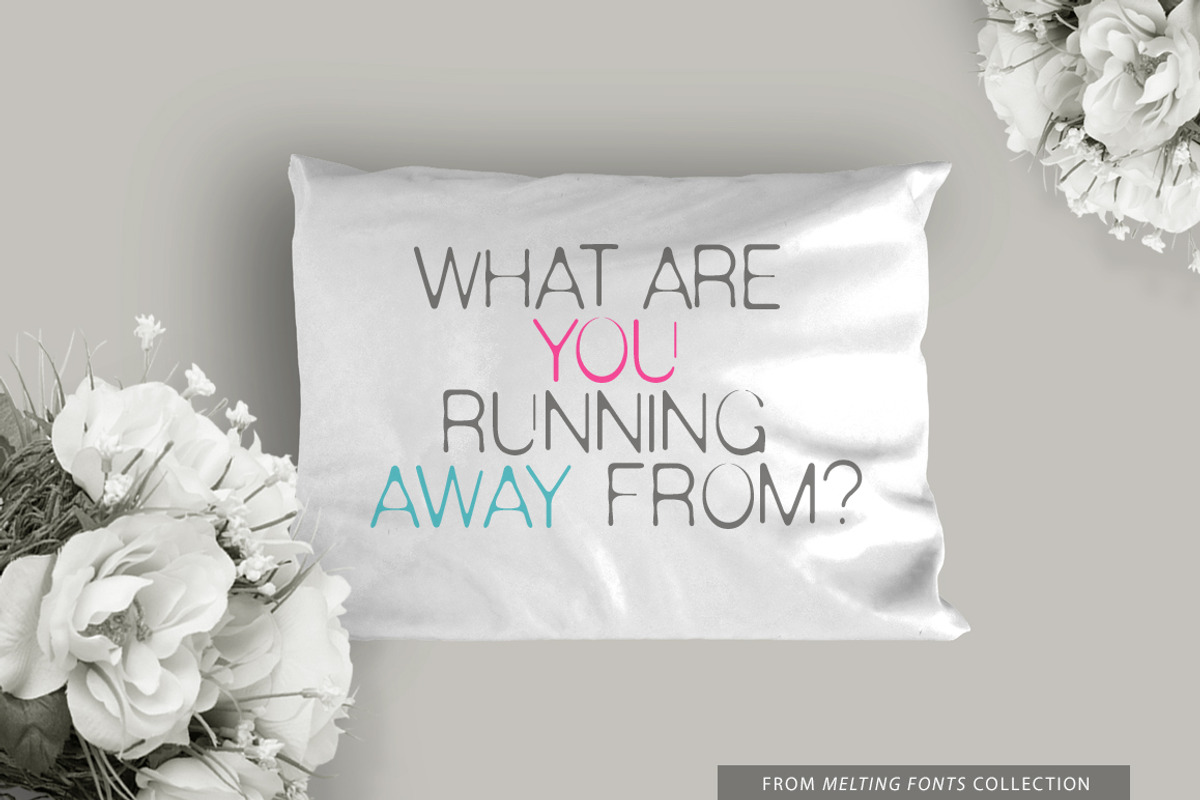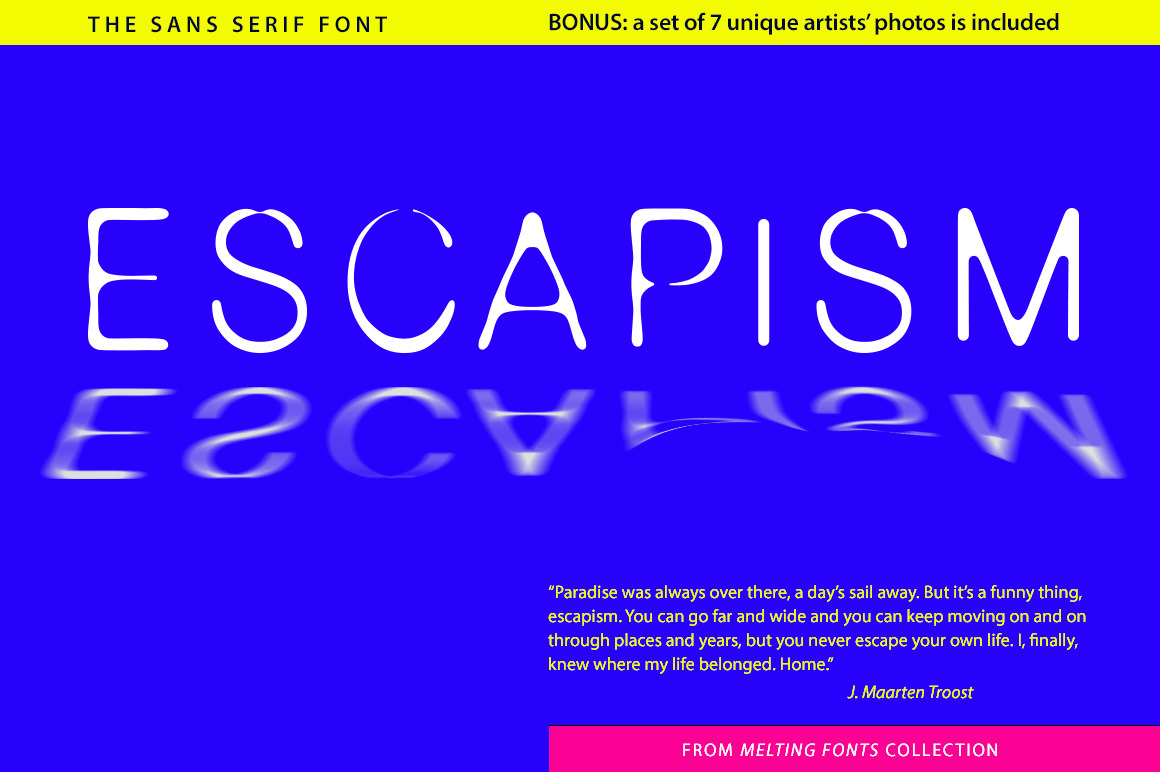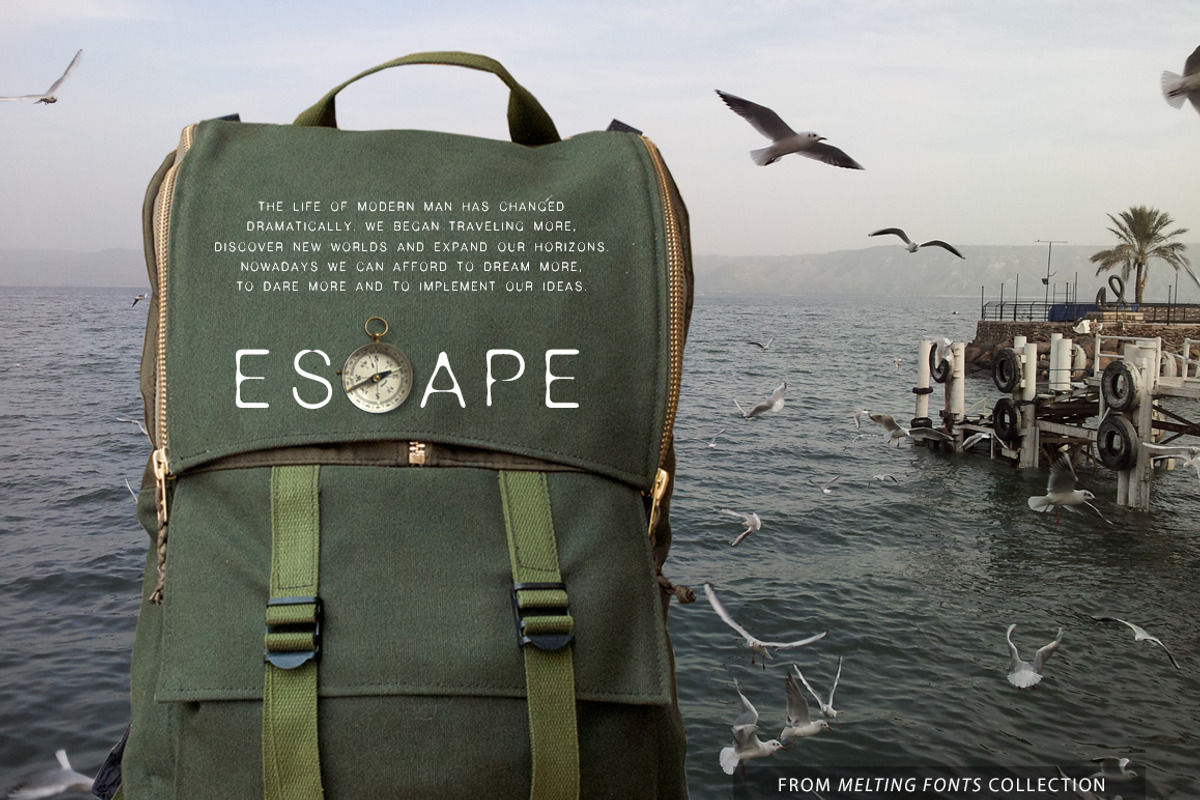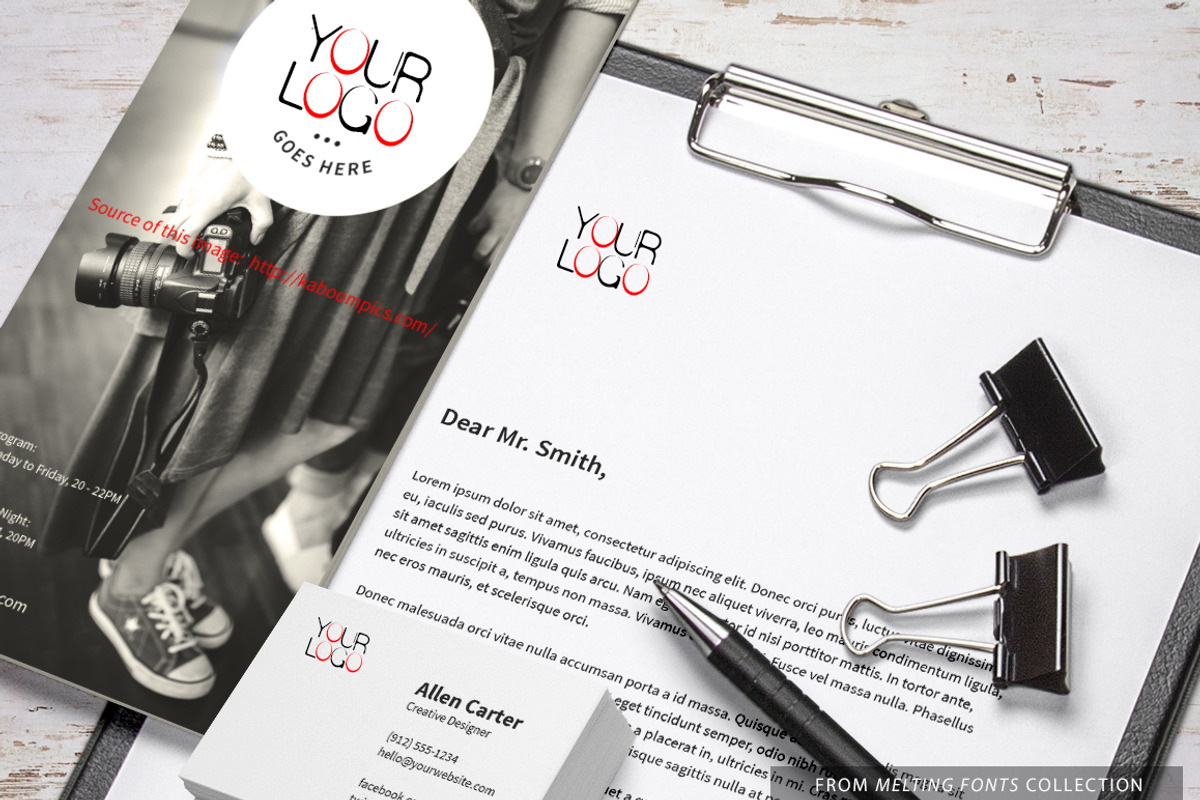
Escapism Sans Serif Font
We, GalaStudio (Lilia & Galina) present the font ESCAPISM – the first of our new MELTING FONTS collection.
We begin to design a new font from creating its visual and conceptual image. This approach leads us to the discovery of new knowledge, and we are happy to share this information with you.
Escapism is the avoidance of unpleasant, boring, arduous, scary, or banal aspects of daily life. It can also be used as a term to define the actions people take to help relieve persisting feelings of depression or general sadness. (Wikipedia)
Psychologists say that the modern world is characterized by volatility and instability. This tendency is reflected in the self-perception of people and their behavior in society. More and more people turn to various spiritual practices and meditations. Thus they try to get rid of the feelings of guilt, resentment, loneliness and alienation.
The life of modern man has changed dramatically. We began traveling more, discover new worlds and expand our horizons. Nowadays we can afford to dream more, to dare more and to implement our ideas. The font as an important part of environmental design, reflects contemporary reality. That’s why the blurred backgrounds and disappearing graphic elements are now the trend! We would like to respond to this challenge.
We hope that using MELTING FONTS can add uniqueness to your product and give it the charm of mystery and romance! And in turn, the elegant and minimalist design of your books, brochures, magazines will create an impeccable framing to our font!
PERFECT FOR: using in branding projects, homeware design, packaging design; magazines, posters and flyers titles; logos design, books design, fashion design, slogans etc. :)